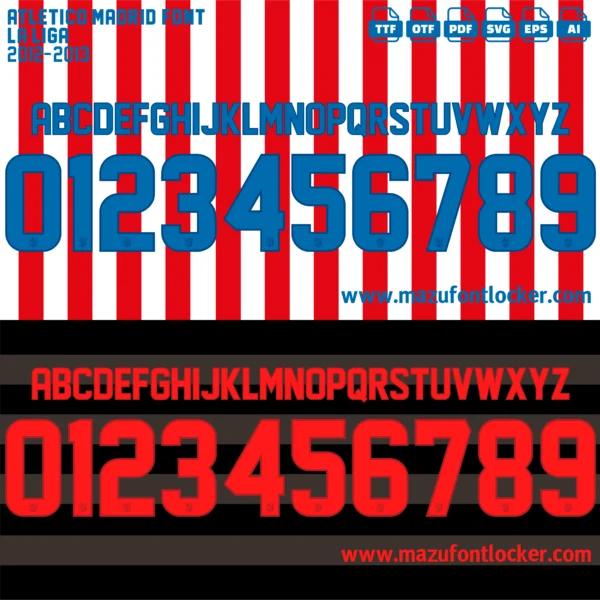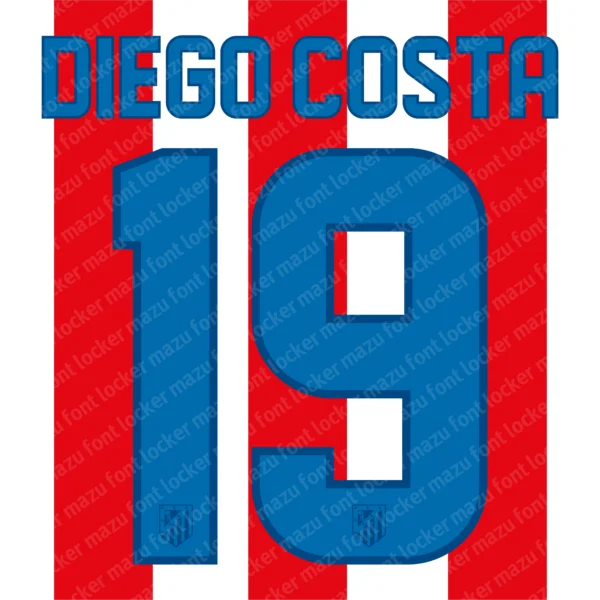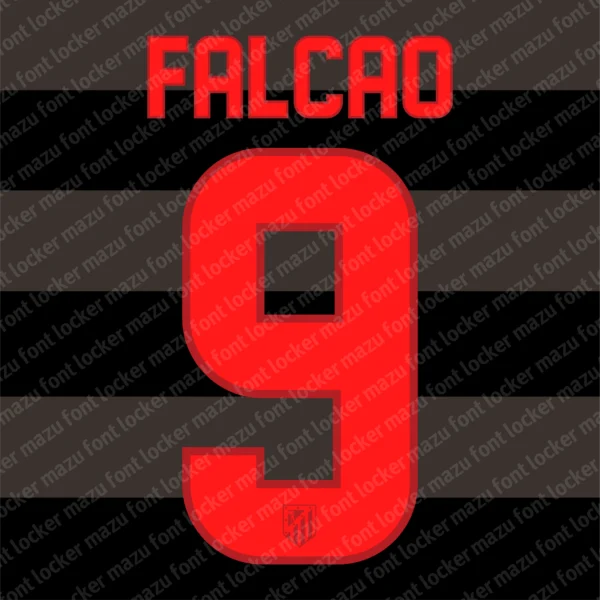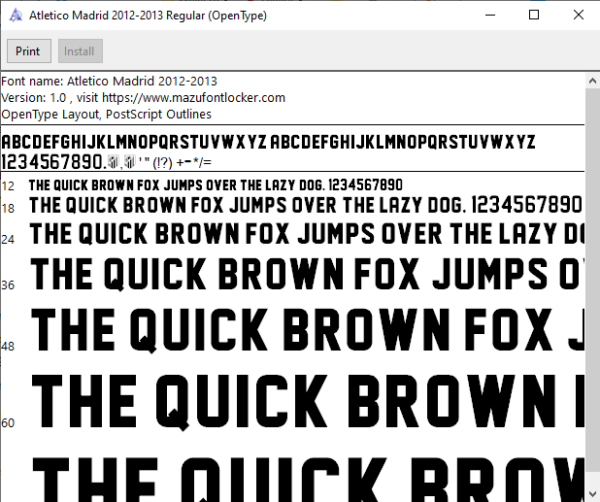
Atletico Madrid 2012-2013 Font Vector – Epic Rojiblancos Warriors Masterpiece
This font captures the commanding, intense, and precision-crafted lettering that perfectly reflects Atletico Madrid’s warrior club identity, proud Madrid heritage, never-say-die mentality, and raw football excellence — delivering unmatched authenticity, premium quality, explosive energy, and elite Spanish football power for professional jersey mockups, dynamic football graphics, premium sports branding, passionate fan creations, and high-end design projects.
Atletico Madrid 2012-2013 Font Vector – Legendary Red & White Typeface
The Atletico Madrid 2012-2013 Font Vector is a premium typeface that accurately recreates the official match lettering worn by Atletico Madrid during the iconic 2012-2013 season. This high-quality vector font kit captures the bold, passionate, and instantly recognizable typography that perfectly complements the club’s traditional red and white striped identity.
Designed for professional designers, football enthusiasts, and passionate Atletico supporters, the Atletico Madrid 2012-2013 Font Vector delivers exceptional authenticity for creating realistic jersey mockups, football merchandise, social media graphics, match posters, and custom fan artwork. Every character has been carefully recreated to match the classic visual style of one of Spain’s biggest and most resilient football clubs.
This font stands out thanks to its precise vector construction and authentic club styling. Every letter and numeral has been meticulously recreated to match the official shirt lettering used throughout the memorable 2012-2013 La Liga and Europa League campaign. Whether you’re producing professional kit templates or creating eye-catching football content, the Atletico Madrid 2012-2013 Font Vector delivers a genuine match-ready appearance.
The lettering featured in the Atletico Madrid 2012-2013 Font Vector combines clean geometric lines with powerful modern proportions. The result is a premium and highly readable typeface that reflects Atletico Madrid’s fighting spirit, proud tradition, and never-give-up mentality.
- Complete uppercase A–Z alphabet and numbers 0–9 in authentic Atletico Madrid 2012-2013 style
- Includes authentic La Liga badge glyph placement beneath player numbers
The Atletico Madrid 2012-2013 Font Vector is an independently designed typeface package inspired by the official shirt lettering worn during the 2012-2013 season. It has been carefully recreated for football enthusiasts, graphic designers, collectors, and creators producing custom jersey concepts, football artwork, and fan-made projects.